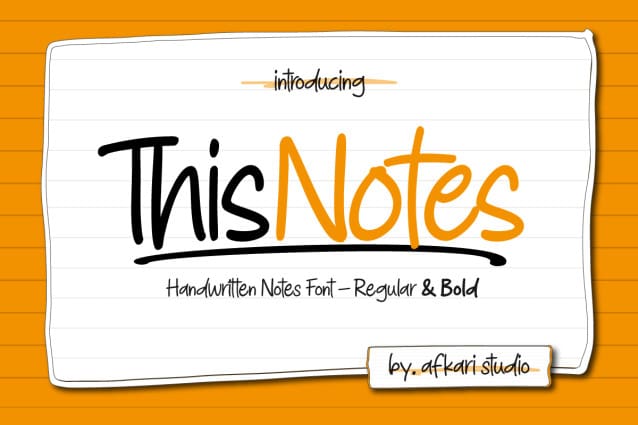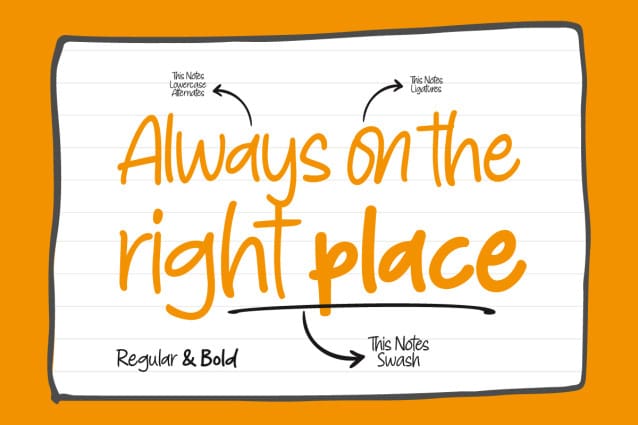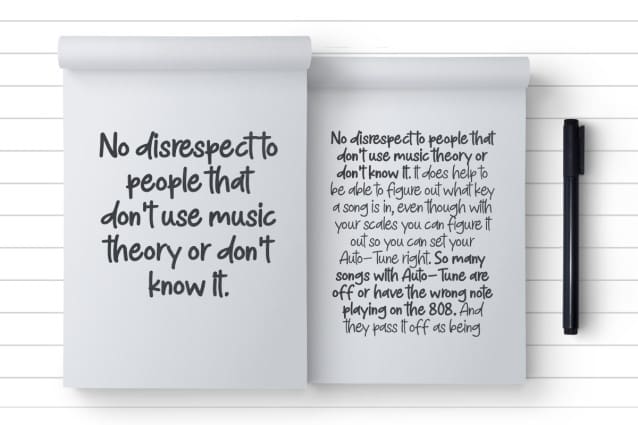
This Notes Font
This Notes Font – Handwritten Marker Note Font is a delightful testament to the artistry of handwriting, meticulously crafted to infuse your designs with an authentic, hand-drawn aesthetic. With a distinctive yet versatile style, This Note is poised to enhance a diverse array of design projects, serving as a conduit for creativity and expression.
At its core, ThisNote embodies the charm of handwritten notes, capturing the nuances and imperfections that make each stroke unique. Its natural flow and effortless elegance make it an ideal choice for a multitude of graphic endeavors, ensuring its relevance across various platforms and applications.
This Notes – Handwritten Marker Note Font